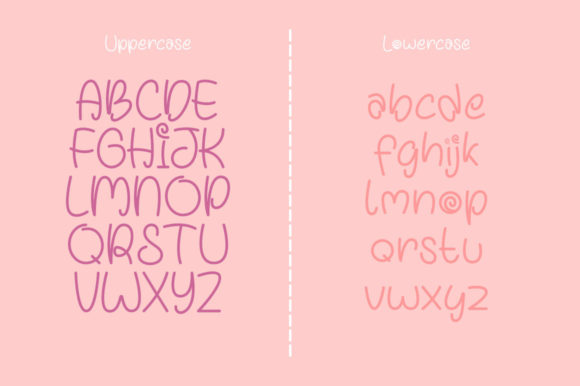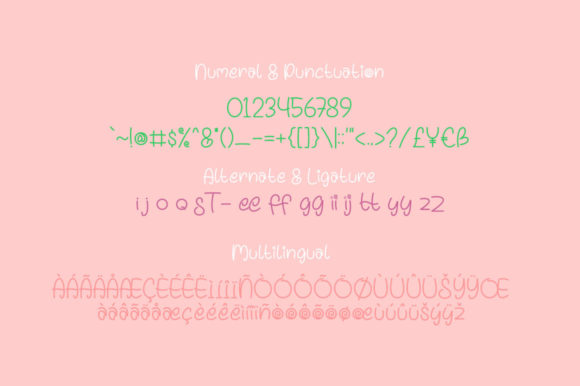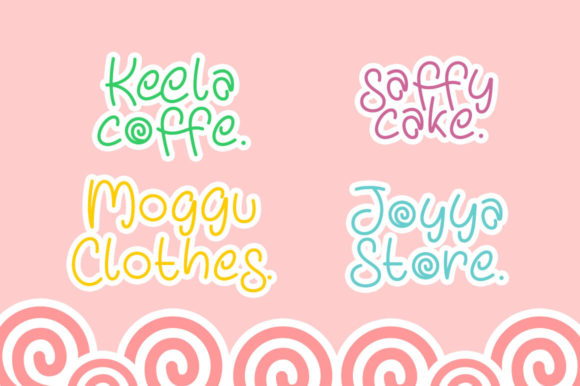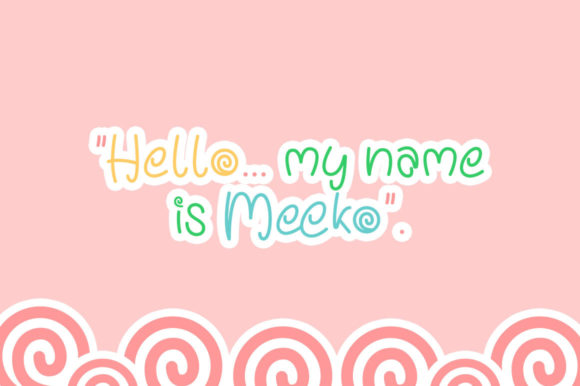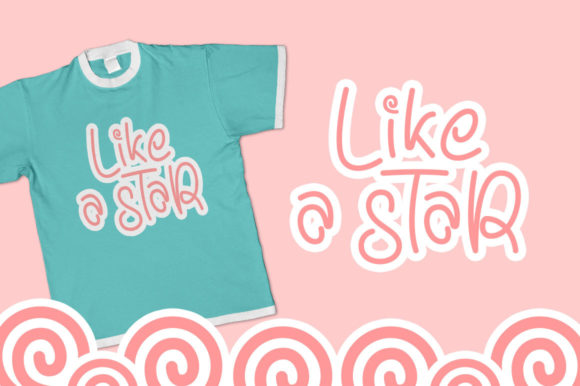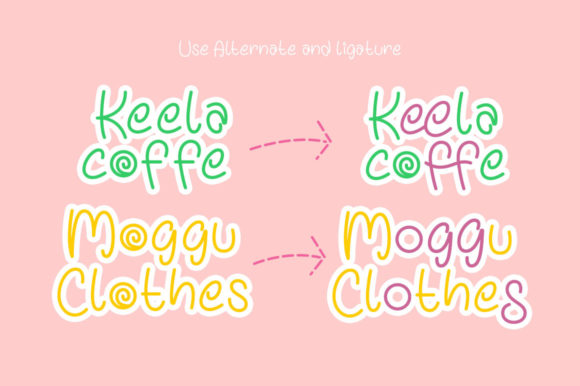
Introduction to Lipops Font
Lipops is a fun, friendly and colourful display font.
This font is perfect for children themed designs, especially when combined with bright colors .
Key Features of Lipops Font
Why Choose Lipops Font?